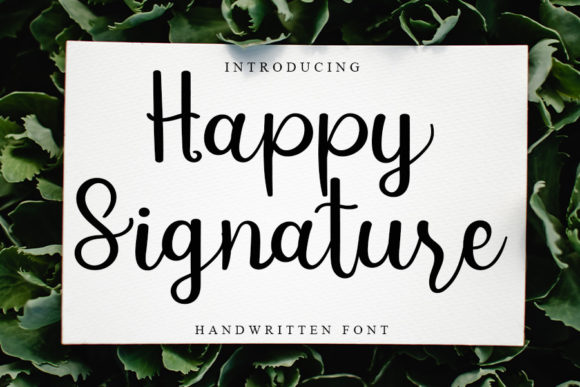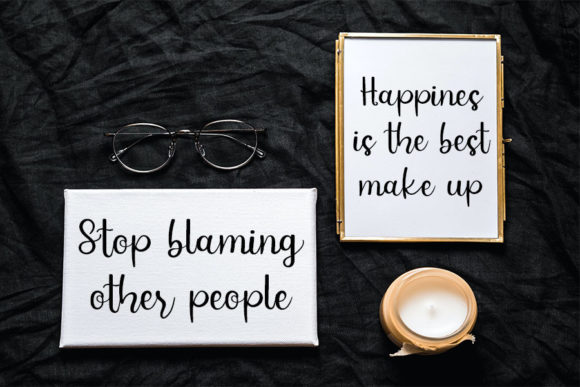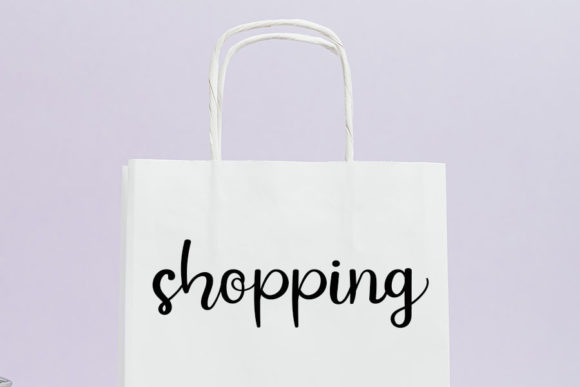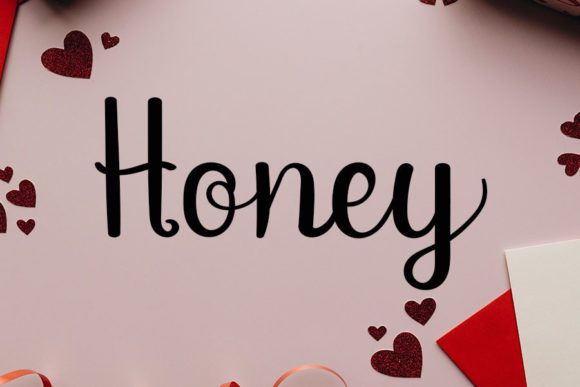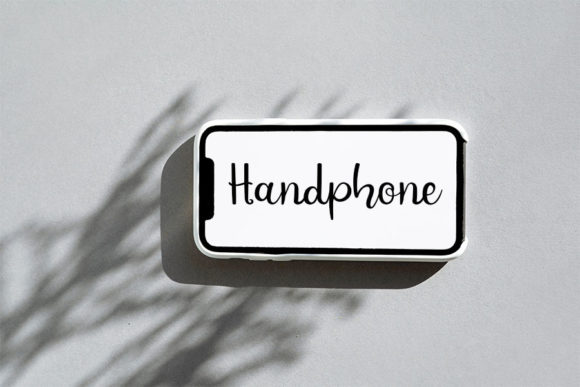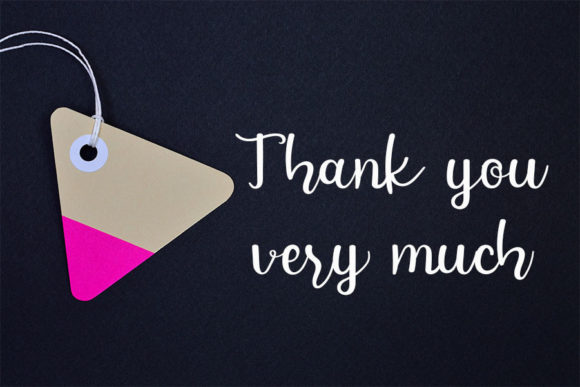
Happy Signature Font
Happy Signature is a slim and delicate handwritten font that exudes a sense of daintiness and joyfulness. This font is ideal for various applications, especially well-suited for writing wedding invitations, cards, or any other design that requires a romantic and personalized touch.
The slim and delicate strokes of Happy Signature bring a refined and elegant quality to your typography. Its design is crafted to evoke a sense of joy and happiness, making it a perfect choice for projects that aim to convey a romantic and personalized sentiment.
Whether used for special occasions like weddings or for adding a touch of warmth to everyday designs, Happy Signature stands out with its unique charm. The personalized and handwritten feel of the font adds an authentic touch, creating a connection between the text and the reader.
In summary, Happy Signature is more than just a font; it’s a slim and delicate handwritten typeface that brings joy and a personalized touch to your designs. Its suitability for wedding invitations, cards, and various other projects makes it an excellent choice for anyone seeking to infuse a sense of romance and happiness into their creative endeavors. With Happy Signature, your designs are sure to captivate with a delightful and heartfelt charm.